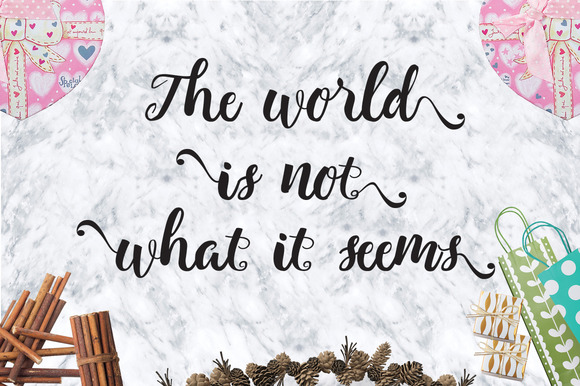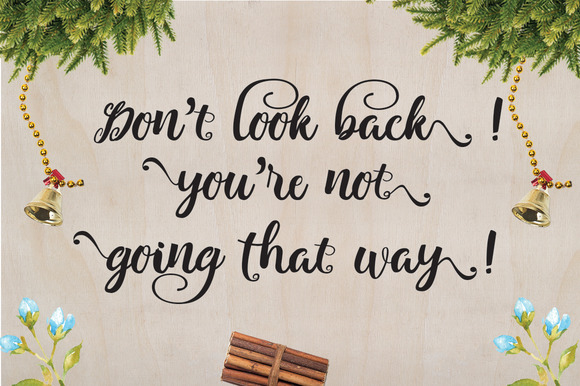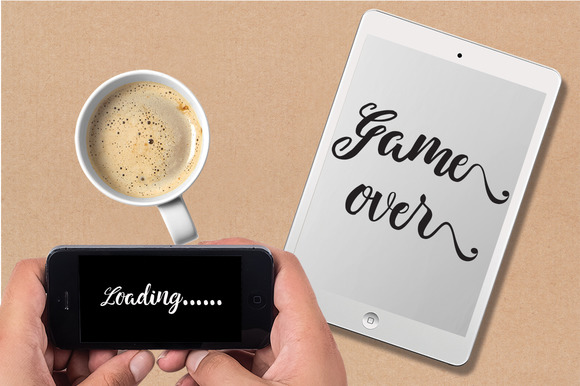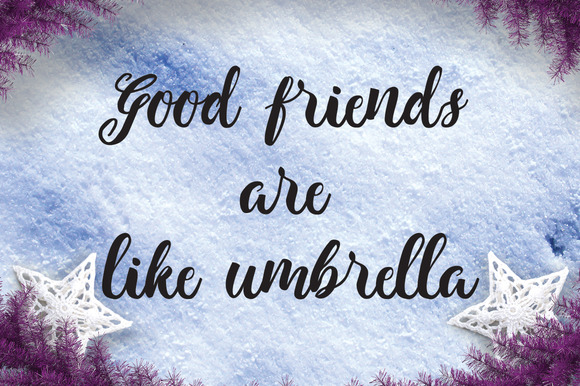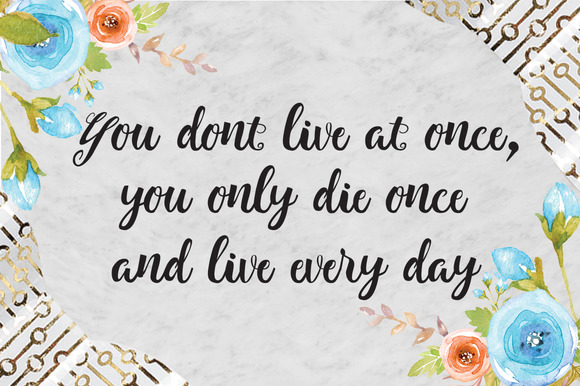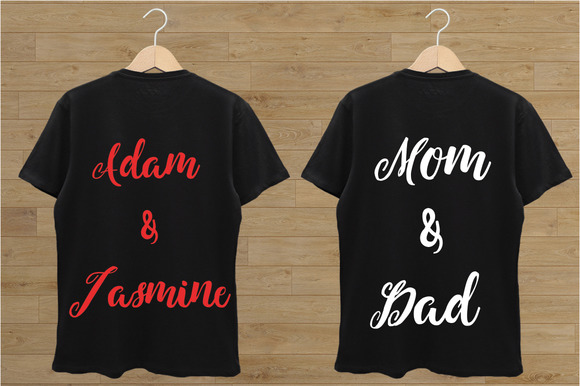
The Perfect Brushstroke: Unleashing the Power of Bougainvillea Font
You know that feeling when you’re working on a design project, and you’re just about to give up because nothing seems to be coming together? You’ve tried every font, every color scheme, every layout, but it’s just not clicking. And then, like a breath of fresh air, you stumble upon the perfect font – one that’s elegant, sophisticated, and screams “you’ve got this!” For many designers, that font is the Bougainvillea Font, a hand lettering typeface that’s perfect for a wide range of creative projects.
Whether you’re designing posters, t-shirts, or wedding invitations, the Bougainvillea Font is an excellent choice. Its versatility, combined with its unique and beautiful brushstroke style, makes it a valuable asset for any designer looking to add a personal touch to their work. And with the Bougainvillea Font, you can trust that your designs will stand out from the crowd and leave a lasting impression on your audience.
Bougainvillea Font Key Features
- Font Family: Bougainvillea Font, a beautiful and elegant script font.
- Unique Characteristics: Features a unique blend of elegance and sophistication, making it perfect for high-end branding, invitations, and special occasions.
- Language Support: Supports multiple languages, including Latin, Cyrillic, and Greek alphabets, making it a versatile font for global applications.
Bougainvillea Font Review
The Bougainvillea Font is a visually stunning script font that has gained popularity among designers and non-designers alike. Here’s my honest review of this beautiful font.
- The Bougainvillea Font is perfect for adding a touch of elegance and sophistication to any design project. Its flowing lines and delicate curves make it ideal for creating invitations, wedding stationery, and other high-end designs.
- The font is highly legible, even at smaller font sizes, making it suitable for body text and captions.
- The Bougainvillea Font is available in a range of weights and styles, including a beautiful script and a more modern, sans-serif version.
- The font can be challenging to read at very small sizes, which may limit its use in certain design projects.
- The Bougainvillea Font may not be suitable for designs that require a more bold or dramatic font, as its delicate nature can make it seem almost too subtle.
Overall, the Bougainvillea Font is a beautiful addition to any designer’s toolkit. While it may have some limitations, its unique charm and elegance make it a great choice for a wide range of design projects.
Bougainvillea Font Practical Application Guide
For the best results, use the Bougainvillea font for creative and artistic projects such as:
- Event branding and signage
- Photography and illustration projects
Alternatives to Bougainvillea Font
Pacifico is a beautiful, elegant script font perfect for creating a sophisticated and luxurious feel. It’s ideal for branding, packaging, and wedding invitations. Pacifico is more refined and polished compared to Bougainvillea Font, which has a more whimsical and playful feel.
Carolyna Pro is a modern script font with a touch of elegance and sophistication. It’s perfect for creating a high-end and luxurious feel, ideal for branding, advertising, and packaging. Carolyna Pro has a more refined and sleek feel compared to Bougainvillea Font, which has a more bohemian and free-spirited vibe.
Great Vibes is a beautiful, elegant script font with a touch of playfulness. It’s perfect for creating a fun and lively feel, ideal for branding, advertising, and social media. Great Vibes has a more relaxed and casual feel compared to Bougainvillea Font, which has a more dramatic and eye-catching feel.
Q: What is the recommended font size for optimal readability with the Bougainvillea Font?
The recommended font size for optimal readability with the Bougainvillea Font is between 14-24 points. However, this may vary depending on the specific use case, screen resolution, and viewing distance. It’s always a good idea to test the font at different sizes to ensure the best results.